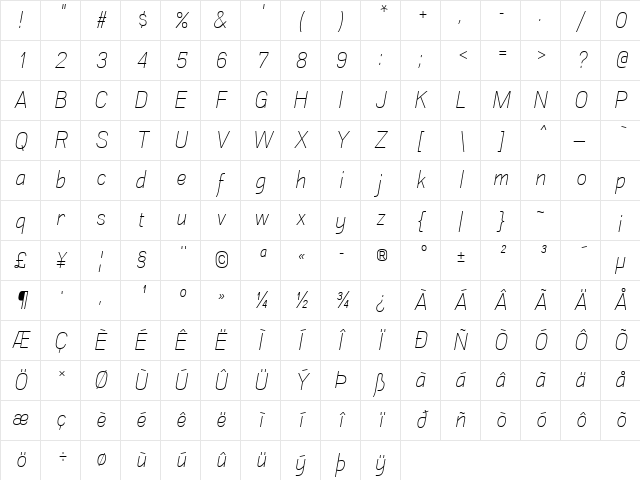
Akazan Light Italic Free Font
Akazan Light Italic
Akazan Family
Complete Akazan Light Italic glyph index. Displaying only characters natively supported by Akazan Light Italic font.
Design Context for Akazan
Akazan is a composed and adaptable typeface that performs quietly and consistently across a wide range of design contexts. The slanted form adds forward momentum and visual energy. Its slender proportions lend an understated elegance to any composition.